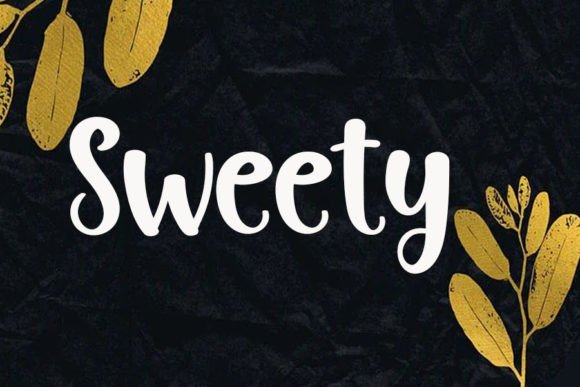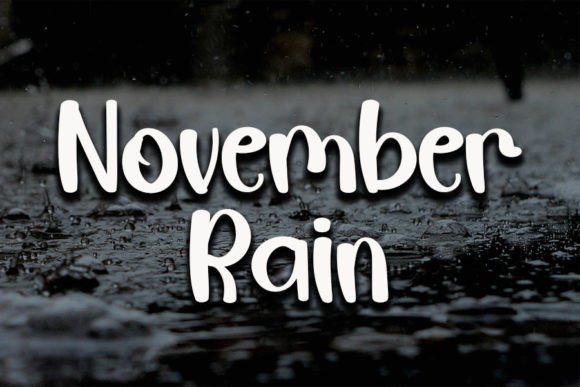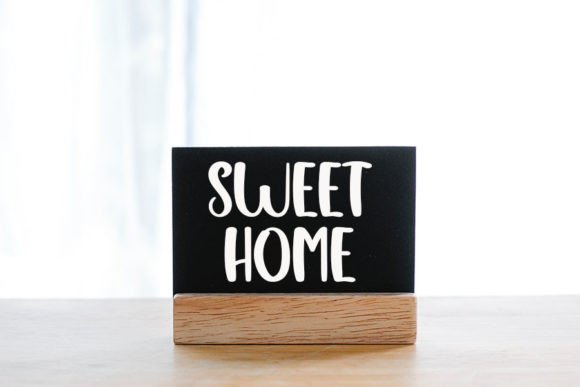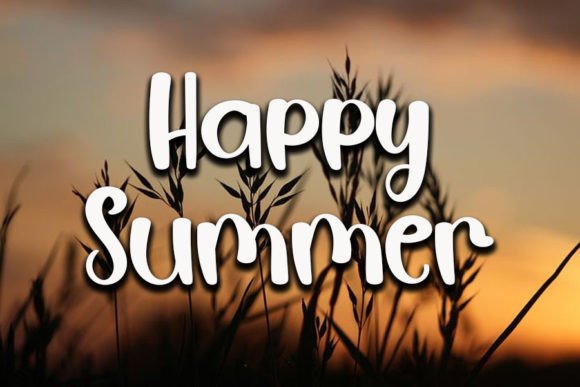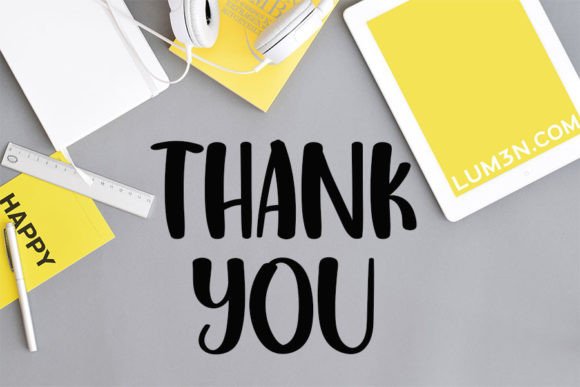
Add a sweet and delicate touch with the Thinking font. This handwritten script is dainty and joyful. It’s perfect for wedding invitations, greeting cards, and any design that needs a romantic and personalized feel.
The Thinking font works well across various creative projects. You can use it for branding, social media graphics, posters, and more. Its gentle strokes bring warmth and elegance to your work.
Each character is carefully crafted with smooth and graceful lines. This creates a polished and inviting look. The font balances readability with artistic style, making it ideal for logos, quotes, and decorative text.
Despite its delicate style, the Thinking font remains readable at different sizes. Whether used for bold titles or subtle details, it adapts well to your design needs. It combines beauty with clarity, making it versatile.
Using this font will help your projects stand out. It adds a romantic and sophisticated vibe. If you want your designs to look personal and elegant, the Thinkingfont is an excellent choice.
In summary, the Thinkingfont suits many design applications. From wedding invitations to branding, it brings charm and style. Download it today and create beautiful, memorable designs with a sweet handwritten script.